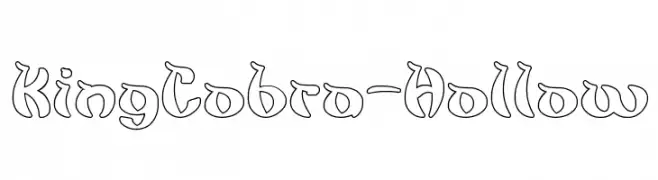
Playful handwritten script font.
A fluid, handwritten-style font with elegant curves and consistent strokes.
A playful, rounded font with a hand-drawn feel, perfect for child-friendly designs.
A whimsical, hand-drawn font featuring quirky, cartoon-like characters.
A playful and casual handwritten font with fluid, dynamic strokes.
A playful, rounded font with consistent stroke width and elegant curls.
A decorative, hollow font with bold, curvy outlines and a playful style.
A bold, high-contrast font with a dynamic, serpentine style.
A bold, playful font with whimsical, rounded letterforms.
A bold, italic script font with a playful and adventurous style.